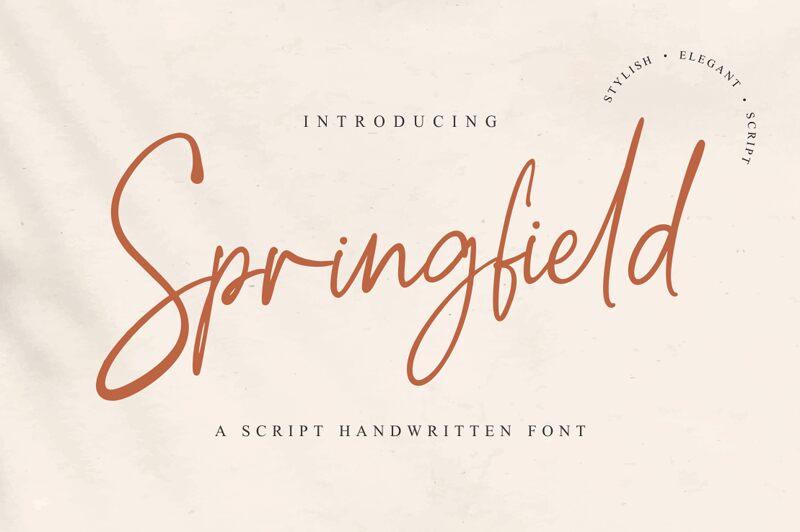
Springfield, designed by Mozatype, infuses elegance and personality into the world of handwritten fonts. Its semi-condensed width and light weight create a delicate yet readable texture perfect for a multitude of creative endeavors. The effortlessly flowing lines mimic the natural variations found in human handwriting, giving a touch of authenticity to digital designs.
This font's aesthetic charm lies in its balance between casual spontaneity and refined grace. Springfield is well-suited for personalized branding, intimate invitations, or any project seeking to convey warmth and individuality. Its versatility allows it to stand out on social media graphics, editorial content, or retail packaging with a bespoke feel that captivates the audience's attention.